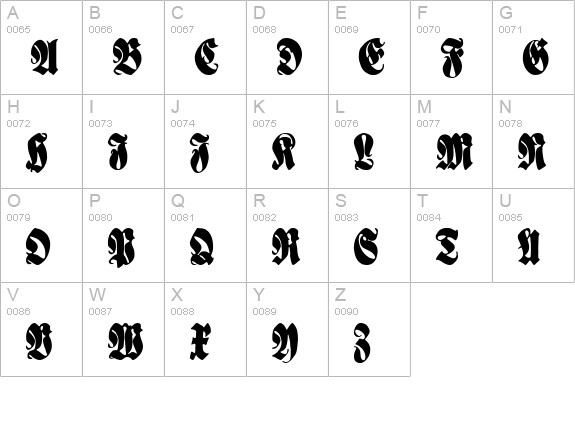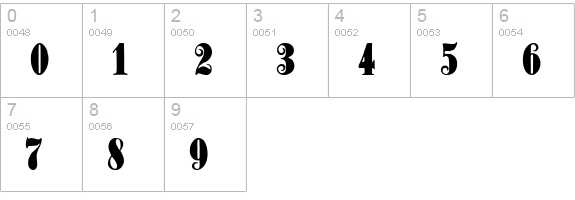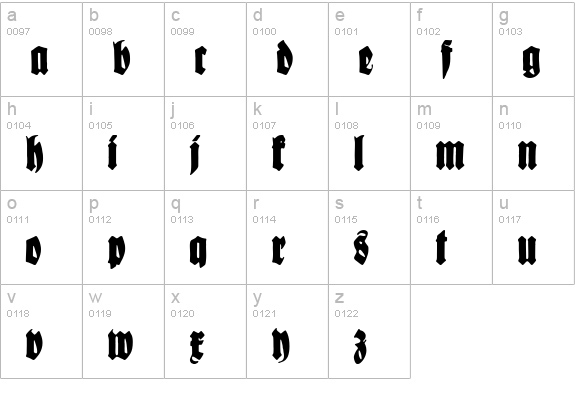
Schmale Anzeigenschrift Font Details
Schmale Anzeigenschrift is a stunning font that offers a unique and elegant appeal. With its slender and refined letterforms, this font is perfect for adding a touch of sophistication to any design project. Whether you're creating eye-catching advertisements, sleek logos, or stylish invitations, Schmale Anzeigenschrift will elevate your work to new heights. Its clean lines and delicate curves make it pleasing to the eye, while its versatility allows it to be used in various settings. One of the best features of Schmale Anzeigenschrift is that it is freely available to download at FontsMarket.com. This means that you can enhance your designs without worrying about breaking the bank. It's a font that not only offers aesthetic value but also practicality. The timeless elegance of Schmale Anzeigenschrift makes it suitable for a wide range of projects, from print to digital. Its legibility and readability ensure that your message will be conveyed effortlessly, no matter the medium. So why wait? Start exploring the possibilities with Schmale Anzeigenschrift today. Download it for free at FontsMarket.com and let your creativity soar. Unleash the power of this font to captivate your audience and leave a lasting impression.